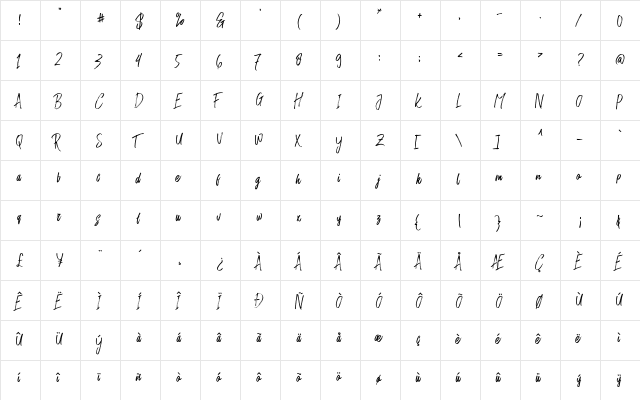
Rushtard Brush Regular
Design Context for Rushtard Brush Typeface
Rushtard Brush flows with the natural rhythm of handwritten lettering, making it ideal for designs that call for warmth and personal expression.
Font Pairing: Combine Rushtard Brush with a simple geometric sans for maximum contrast — the tension between flowing curves and clean structure is a classic typographic pairing.
Pro Tip: Pair Rushtard Brush with a clean sans-serif for supporting text. The contrast between fluid script and geometric structure creates an elegant typographic hierarchy.